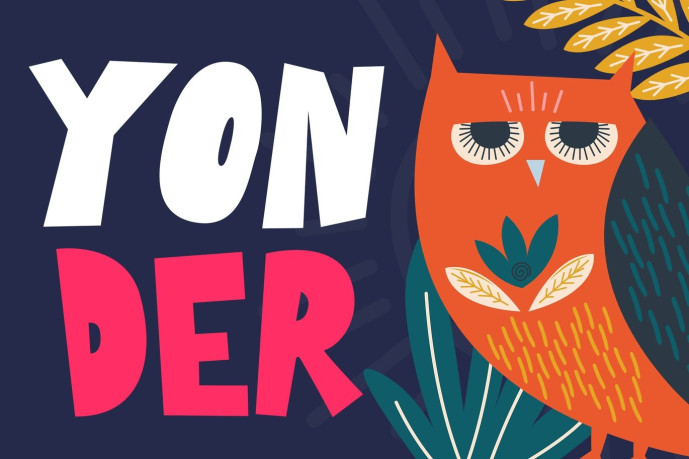
Yonder – Kids Font
Yonder is a playful creative event display font designed for eye-catching posters, exhibition branding, social media campaigns, and artistic promotions. Featuring bold organic letterforms, rounded corners, low-contrast strokes, and slightly irregular shapes, it delivers a handcrafted personality that feels expressive, friendly, and highly memorable.
Inspired by art fairs, creative expos, children’s activities, and maker communities, Yonder brings an energetic visual rhythm that helps headlines stand out while maintaining excellent readability. Its cheerful character makes it ideal for branding projects that need a welcoming and imaginative voice.
Whether you’re designing a creative market poster, event branding system, educational campaign, packaging design, kids-focused promotion, or social media content, Yonder helps transform ordinary headlines into engaging visual experiences. Its bold and artistic appearance captures attention instantly while creating a warm and approachable atmosphere. For designers, illustrators, event organizers, and creative entrepreneurs, Yonder provides a distinctive visual identity that feels both professional and playful.